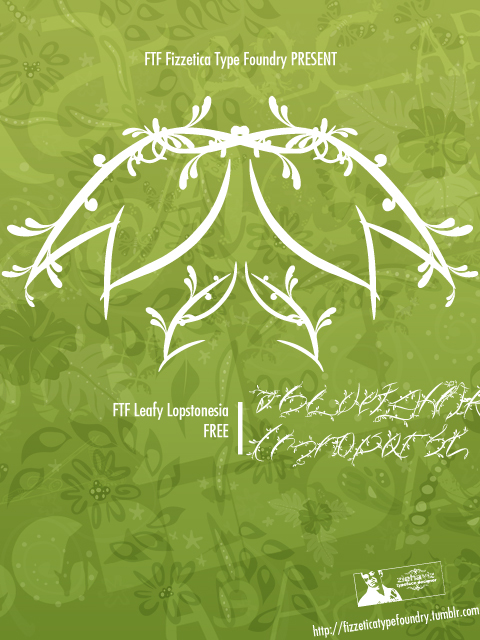
FTF Leafy Lopstonesia by Abdul Hafiz Hilman of Fizzetica Type Foundry DepokAsiana is a free calligraphic script filled with curling leaves, bead-like buds, and long vine flourishes. Broad strokes narrow into needle-sharp points across the restless letterforms.
Botanical brands and florists can use its lively plantwork for packaging, shop signage, and decorative labels, especially when the product story centers on gardens or handmade goods. On garden event posters and invitations, the extended ornaments can weave around illustrations, become leafy borders and emblems, and turn the wording itself into a full part of the picture.